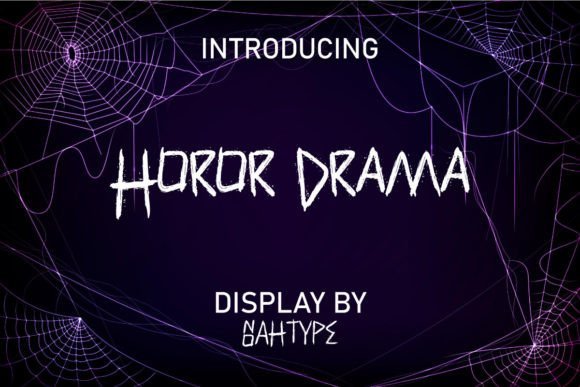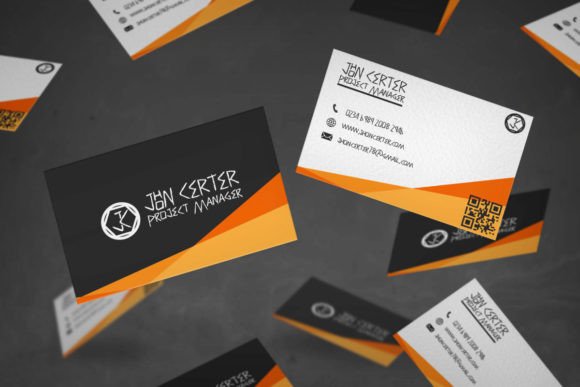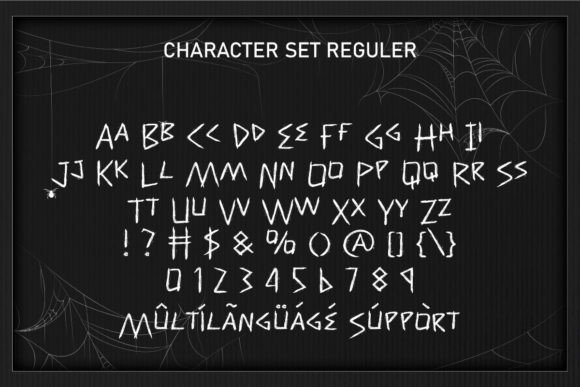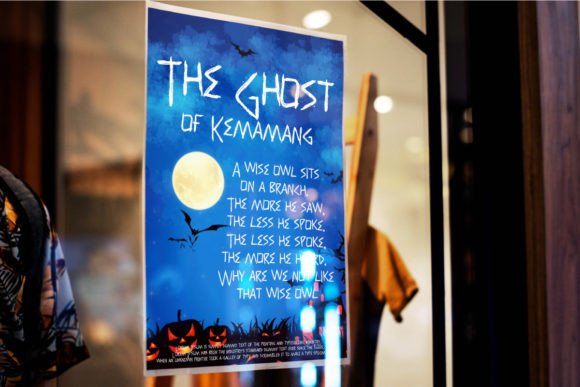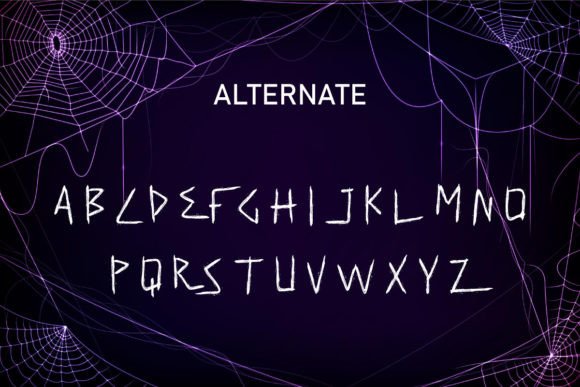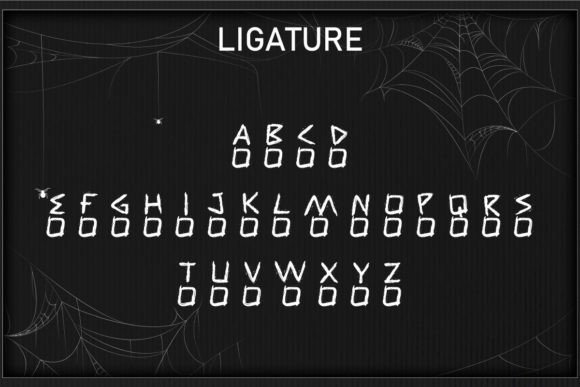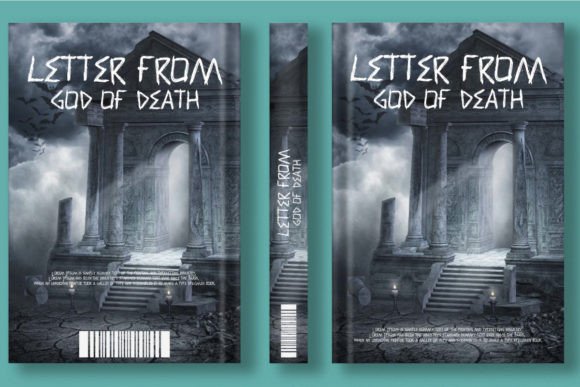
Unlock the Spooky Charm of Your Designs with Horor Drama Font
Have you ever found yourself in a creative block, staring at a blank screen, desperately seeking the perfect font to bring your horror-themed project to life? I’ve been there too! But what if I told you that there’s a font that can add a touch of eerie elegance to your designs, making your audience scream with delight? Enter the Horor Drama Font, a spine-tingling display font that’s perfect for horror enthusiasts and designers alike.
This PUA-encoded font is a game-changer for designers, offering a wide range of glyphs and swashes that can be accessed with ease. With Horor Drama Font, you can add a spooky texture to your designs, making them stand out from the crowd. Whether you’re working on a horror movie poster, a spooky blog, or a haunted house invitation, this font is sure to add a touch of macabre magic to your creations.
Horor Drama Font Key Features
- Font Style: Horor Drama Font is a unique, horror-themed font designed to evoke a sense of eeriness and suspense. It features a distressed, handwritten style with bold lines and irregular letterforms.
- Unique Characteristics: Horor Drama Font features a range of unique characteristics, including irregular letter spacing, bold lines, and a distressed texture that gives it a horror movie poster-like feel.
Horor Drama Font Review
I’ve had the chance to work with the Horor Drama Font, and I must say it’s a unique addition to any design project. Here’s my honest review:
- The font’s distressed look adds a sense of authenticity to any design, perfect for horror-themed projects or vintage-inspired artwork.
- It’s great for creating a sense of unease or tension, which can be beneficial for designers looking to convey a specific mood or atmosphere.
- The font’s irregularities give it a handmade feel, which can add a touch of personality to a design.
- The font’s readability can be a concern, especially at smaller sizes. The irregularities that make it unique can also make it difficult to read.
- It may not be suitable for projects that require a high level of professionalism or sophistication, as it can come across as unrefined or amateurish.
- The font’s usage is limited to specific design contexts, making it less versatile than other fonts.
The Horor Drama Font is a bold and attention-grabbing font that’s perfect for designers looking to add a touch of horror or vintage flair to their projects. While it has some limitations, it can be a great addition to a designer’s toolkit when used thoughtfully.
For a spooky atmosphere, use the font in combination with distressed textures or gradients.
For a haunting effect, use the font in combination with eerie backgrounds or images.
The Horror Drama font is perfect for:
- Movie posters and trailers
- Horror-themed social media graphics
- Spooky-themed websites and blogs